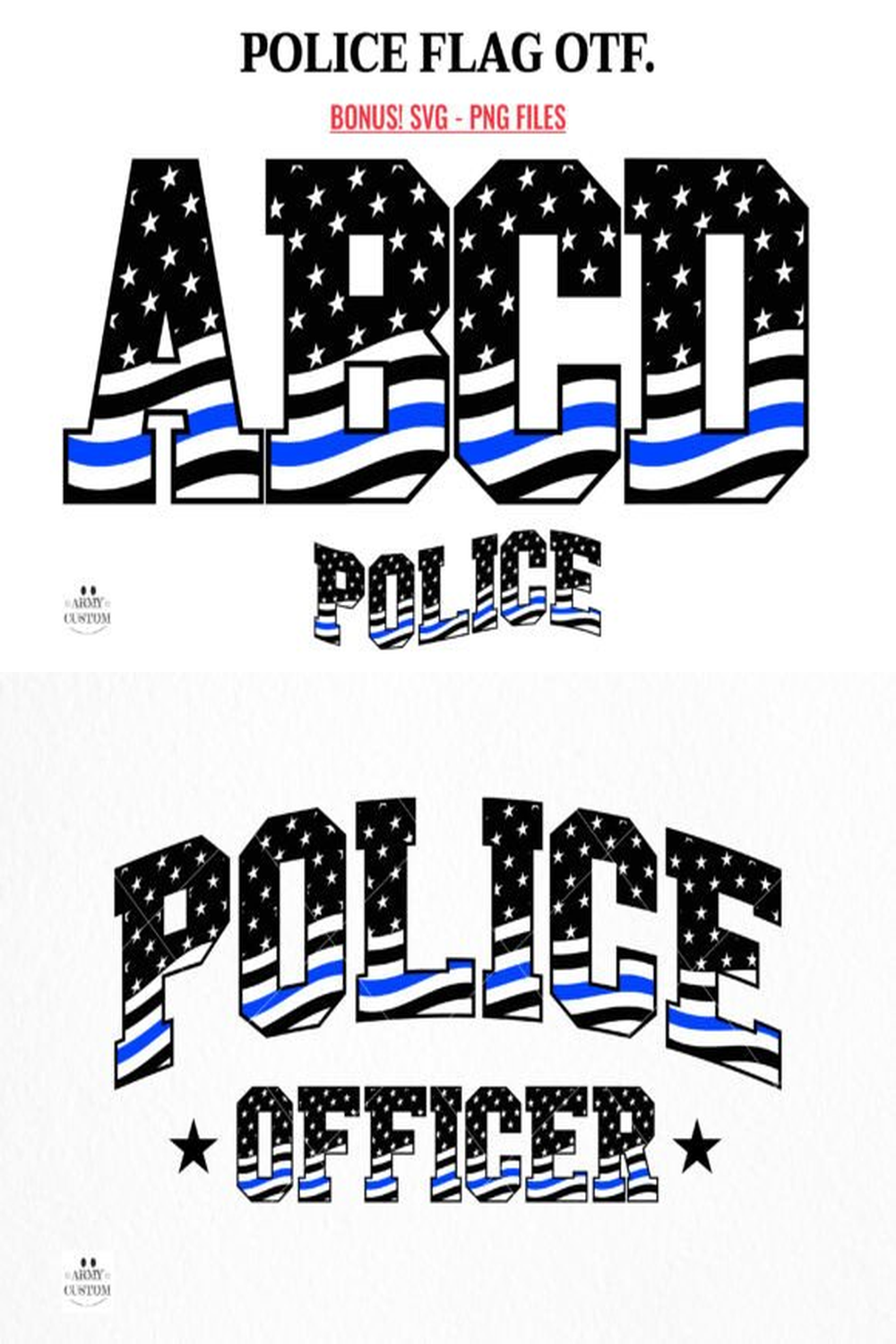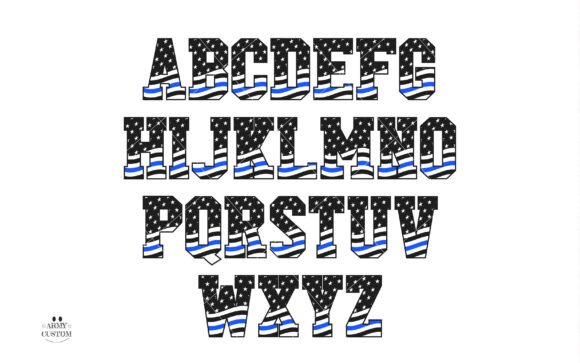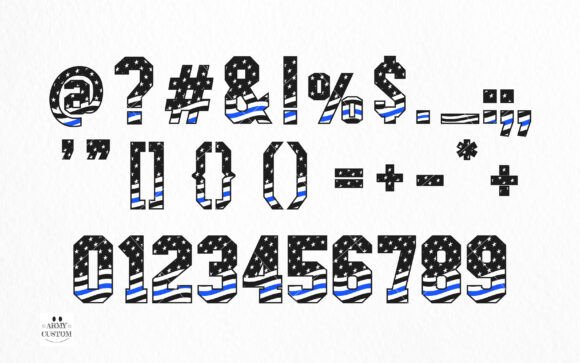
Police Flag Font
About the Police Flag Font
Add a touch of class to your work with the Police Flag Font, a truly exceptional typeface. Introducing the Police Flag Wave Font, the perfect mix of style and patriotism. Revel in its cool aesthetic while basking in the high-spirited pride it embodies. This font captivates with its stand-out design, showcasing the free-spirited pride that resonates in the hearts of those with a patriotic inclination. Add a powerful yet stylish touch to your design projects with the cool and patriotic Police Flag Font.